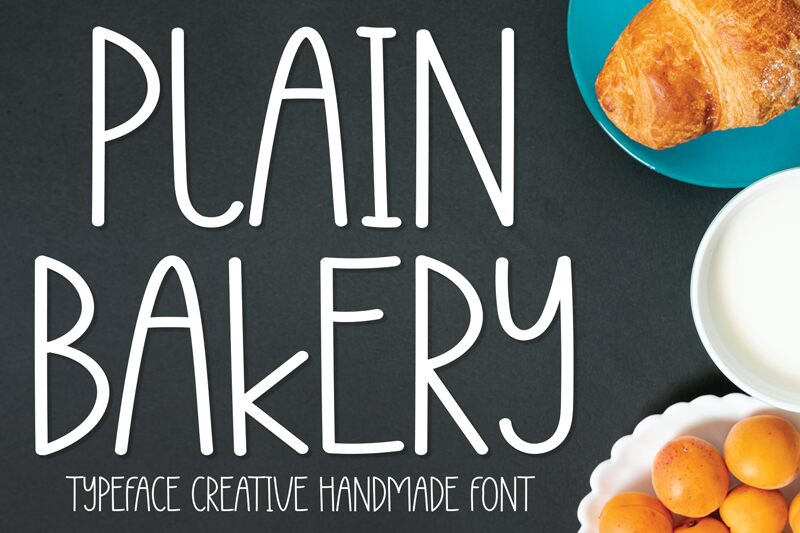
Plain Bakery
Plain Bakery is a charming handwritten creation by Scratchones, exuding an intimate and personal touch with its condensed lettering that seems to dance whimsically across the page. Its aesthetic charm lies in the casual elegance that feels both friendly and inviting, reminiscent of a note penned by a familiar hand.
The font's distinct style makes it a delightful choice for projects that require a dash of personality without overwhelming the senses. Perfect for boutique branding, personalized stationery, or quaint cafe menus, Plain Bakery can infuse any design with warmth and subtle sophistication. It's where simplicity meets grace, creating an inviting atmosphere in every word it forms.